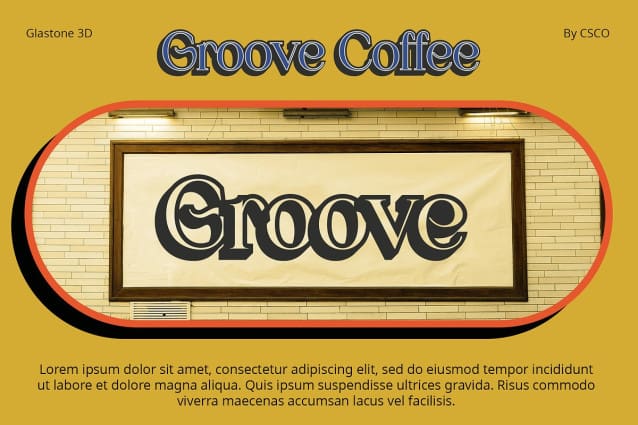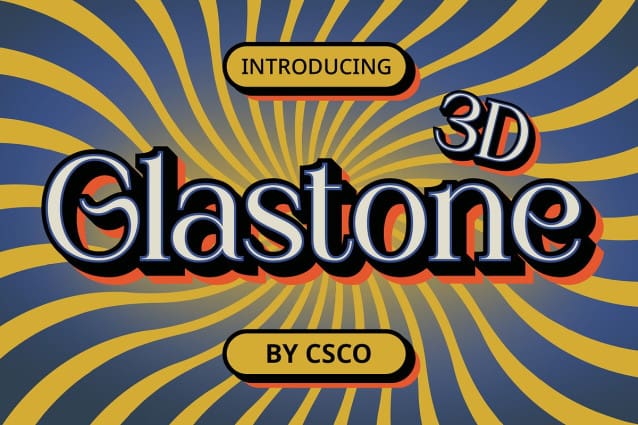
Glastone 3D Font
Glastone 3D Font: Elevating Display Typography. High Contrast Serif Design Glastone 3D boasts a high contrast serif design that exudes elegance and sophistication. Its sharp serifs and bold strokes command attention.
Dynamic 3D Effect With its dynamic 3D effect, This font brings depth and dimension to your designs. Each character appears to leap off the page, adding a captivating visual element.
Ideal for Display Purposes Designed with display in mind, This fontis perfect for headlines, titles, and other prominent text elements. Its striking appearance ensures that your message stands out.
Versatile Application Despite its boldness, This font is versatile and can be used in a variety of design projects. From posters to signage, it adds a touch of flair and sophistication.
Dynamic Sophistication for Display This font combines high contrast serif design with a captivating 3D effect, making it an ideal choice for display typography. Its versatility and striking appearance ensure that your designs leave a lasting impression.